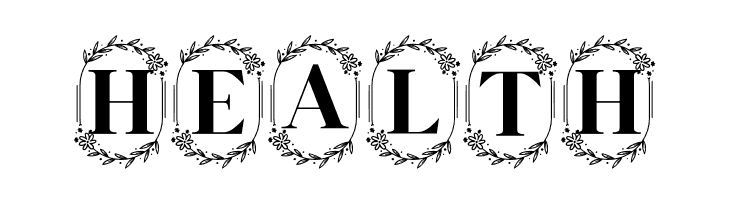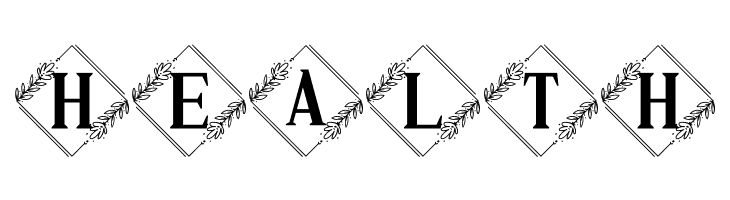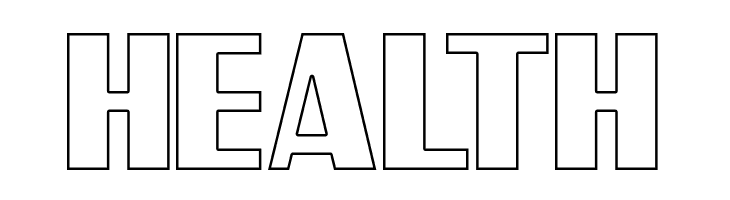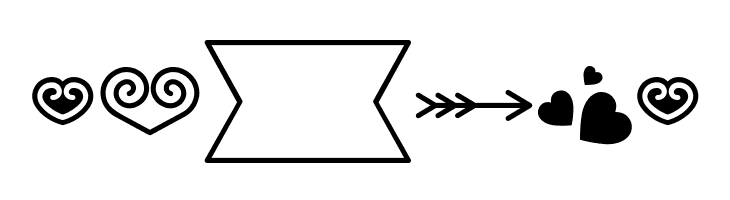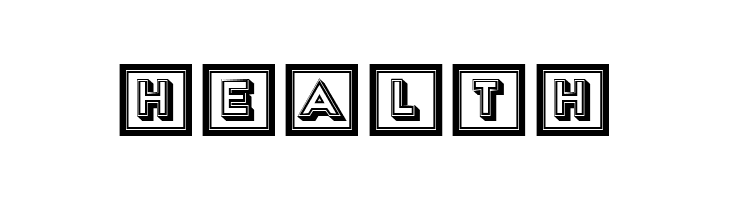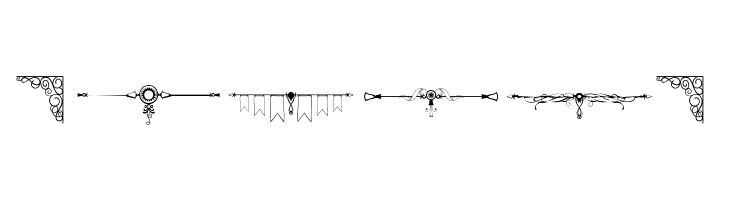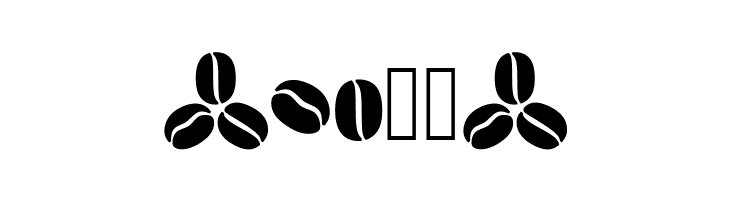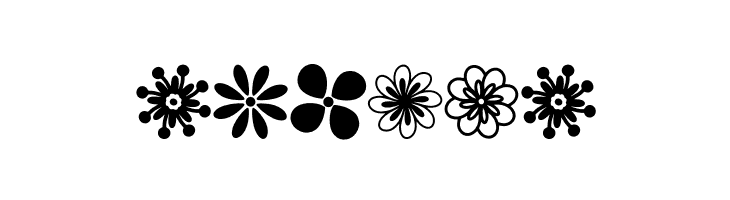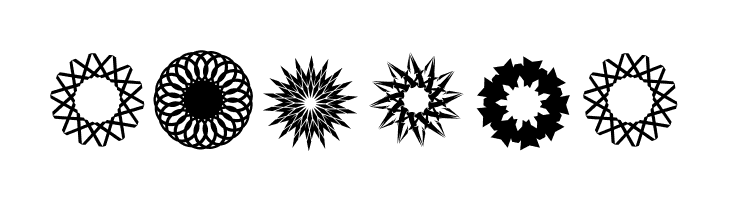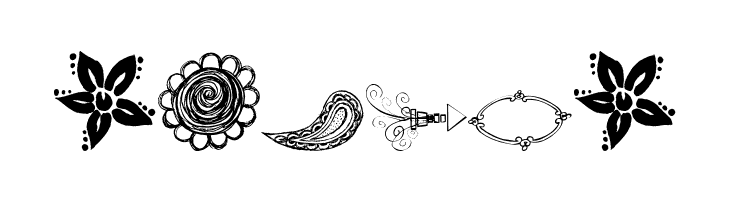
A decorative serif font with ornate monogram-style borders around uppercase letters.
A classic serif monogram font with decorative diamond borders.
A bold, outlined typeface with geometric forms and clear borders.
A whimsical collection of decorative elements featuring hearts, arrows, and banners.
A bold, geometric font with a 3D effect and enclosed in square borders.
Ornate decorative elements and flourishes in a hand-drawn style.
A bold, decorative font with nature-inspired ornamental elements.
A decorative floral and geometric symbol font with unique flower and box glyphs.
Ornamental dingbat font with spirograph shapes and bold rectangles.
Whimsical hand-drawn decorative dingbats with floral and ornate motifs.